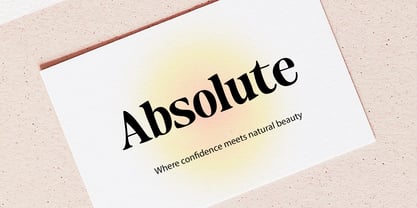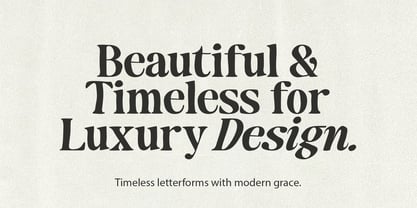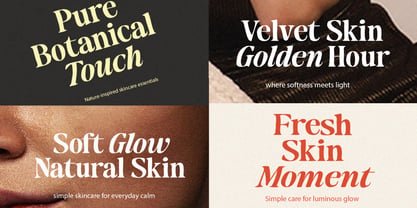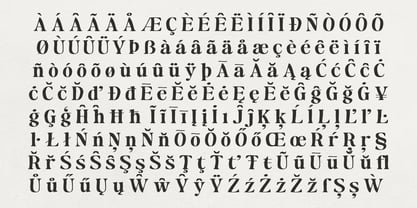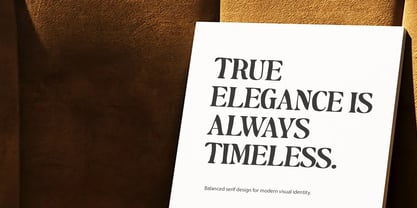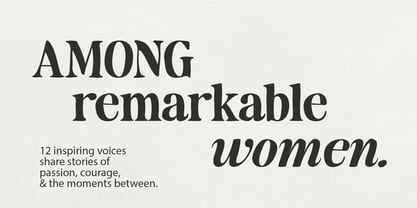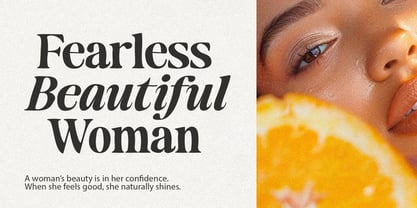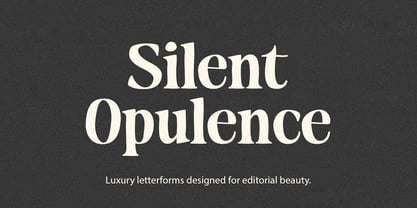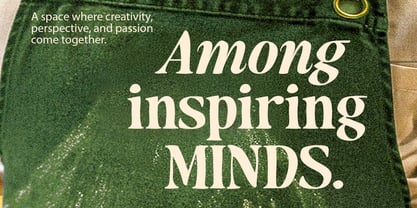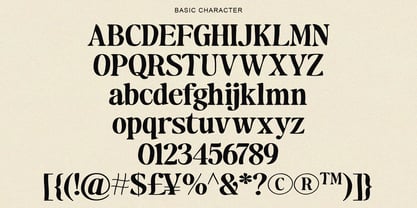
Makers Serif
by Positive Type
The Makers Serif Font Family was designed by Nur Hayati and published by Positive Type. Makers Serif contains 30 styles and family package options. More about this family
Maker's Serif – Elegant Display Serif Typeface Maker's Serif is a sophisticated and expressive display serif typeface designed to bring elegance, personality, and modern character to your creative projects. With its beautiful curves, strong serif structure, and stylish proportions, this typeface creates a luxurious yet contemporary look that feels both timeless and distinctive. Carefully crafted for designers, Maker's Serif is perfect for branding, editorial layouts, fashion campaigns, logos, packaging, social media graphics, and high-end visual identities. Its refined details and stylish letterforms allow your typography to stand out while maintaining excellent readability. This font family includes 30 carefully designed styles, offering a wide range of typographic possibilities. From regular and narrow forms to condensed and expanded versions, as well as elegant italic styles and contrast variations, Maker's Serif gives you the flexibility to create dynamic and unique designs. Whether you're creating a bold headline, a stylish logo, or an elegant brand identity, Maker's Serif delivers a professional and polished typographic voice. Perfect for  • Luxury branding  • Fashion & beauty design  • Editorial & magazines  • Logo design  • Packaging  • Social media graphics  • Invitations & events  • Creative advertising Font Features  • Elegant modern serif style  • Strong display character  • Clean and balanced letterforms  • Stylish italics for dynamic typography  • Multiple width variations  • Contrast styles for expressive headlines Included in the Package You will receive 30 font files, including: Regular styles Narrow styles Condensed styles Expanded styles Oblique styles Contrast styles Italic contrast styles This wide selection allows you to mix styles and create unique typographic compositions with ease. Thank you for choosing Maker's Serif Create beautiful stories with typography.
Designers: Nur Hayati
Foundry: Positive Type